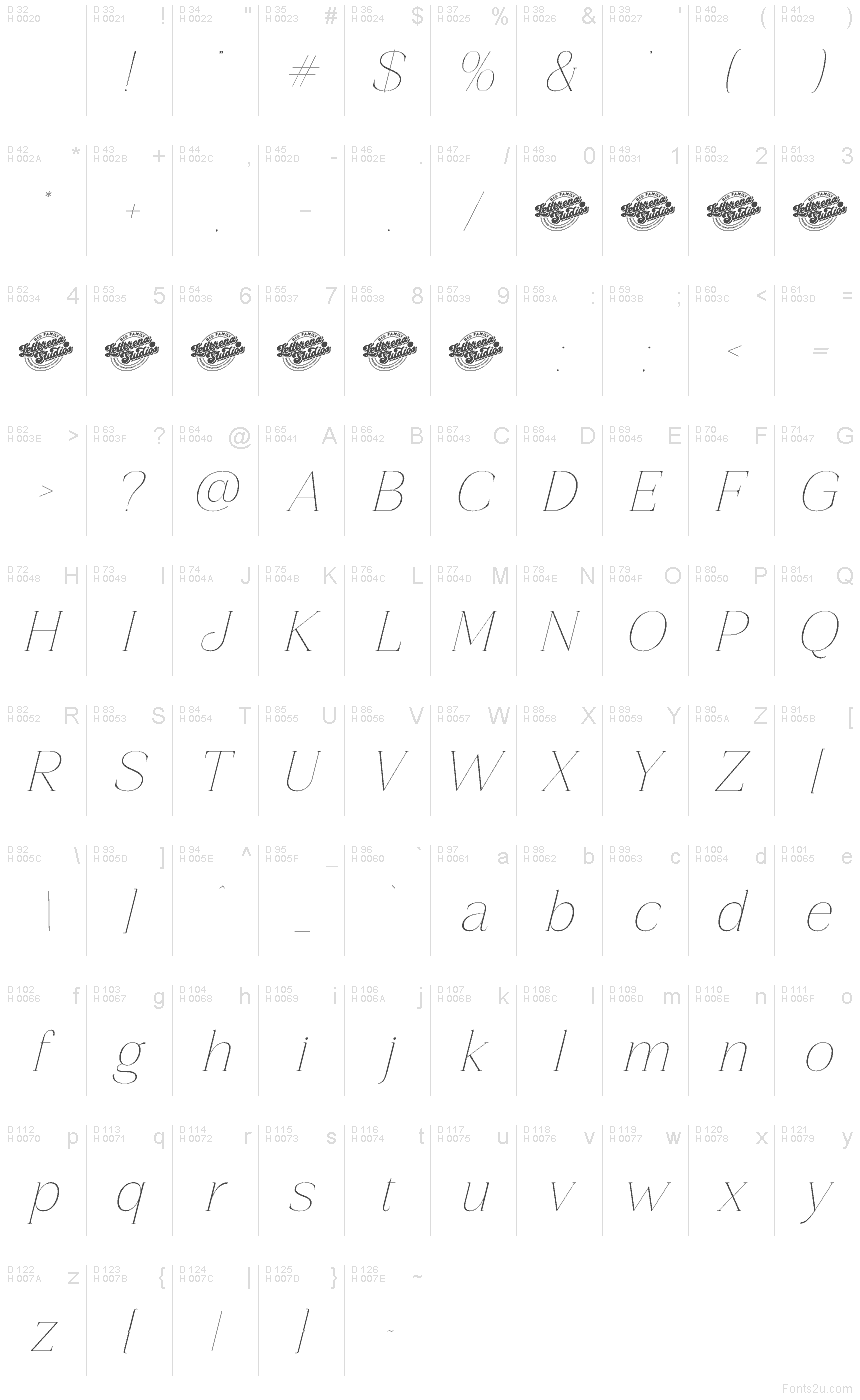
Gestiva DEMO VERSION Italic
Gestiva Italic font by Storytype Studio is a light modern serif font that embodies sleek elegance and sophistication. With its minimalistic and refined design, this typeface exudes a contemporary yet timeless feel, perfect for various creative applications.